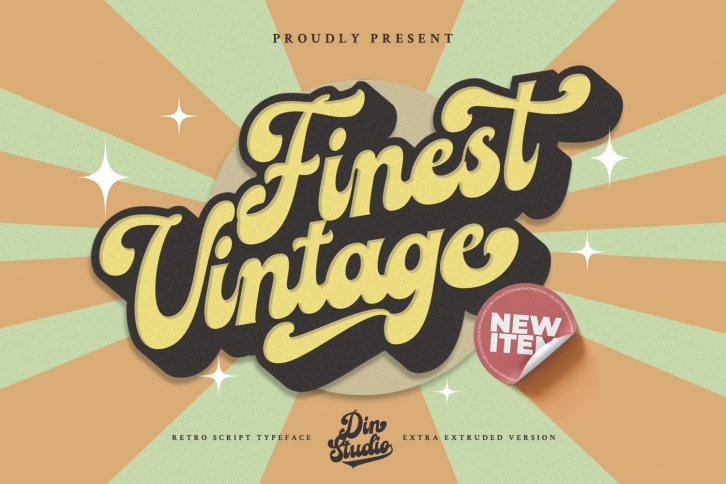
Finest Vintage-A Retro Script Font
Finest Vintage is a beautiful font, employing the iconic bubble style with strong outlines and fat strokes.
This font features thick and angular letters that easy on the eyes and nice to look while it’s also easy to read. It is well suited for making your logos really stand out. The font comes with a range of multilingual glyphs and is one of those bubble fonts styles that’s hard to take your eyes off. Finest Vintage becomes more special with extruding version option. Perfect to create amazing headings, logos, menus, social media graphics, and many more.